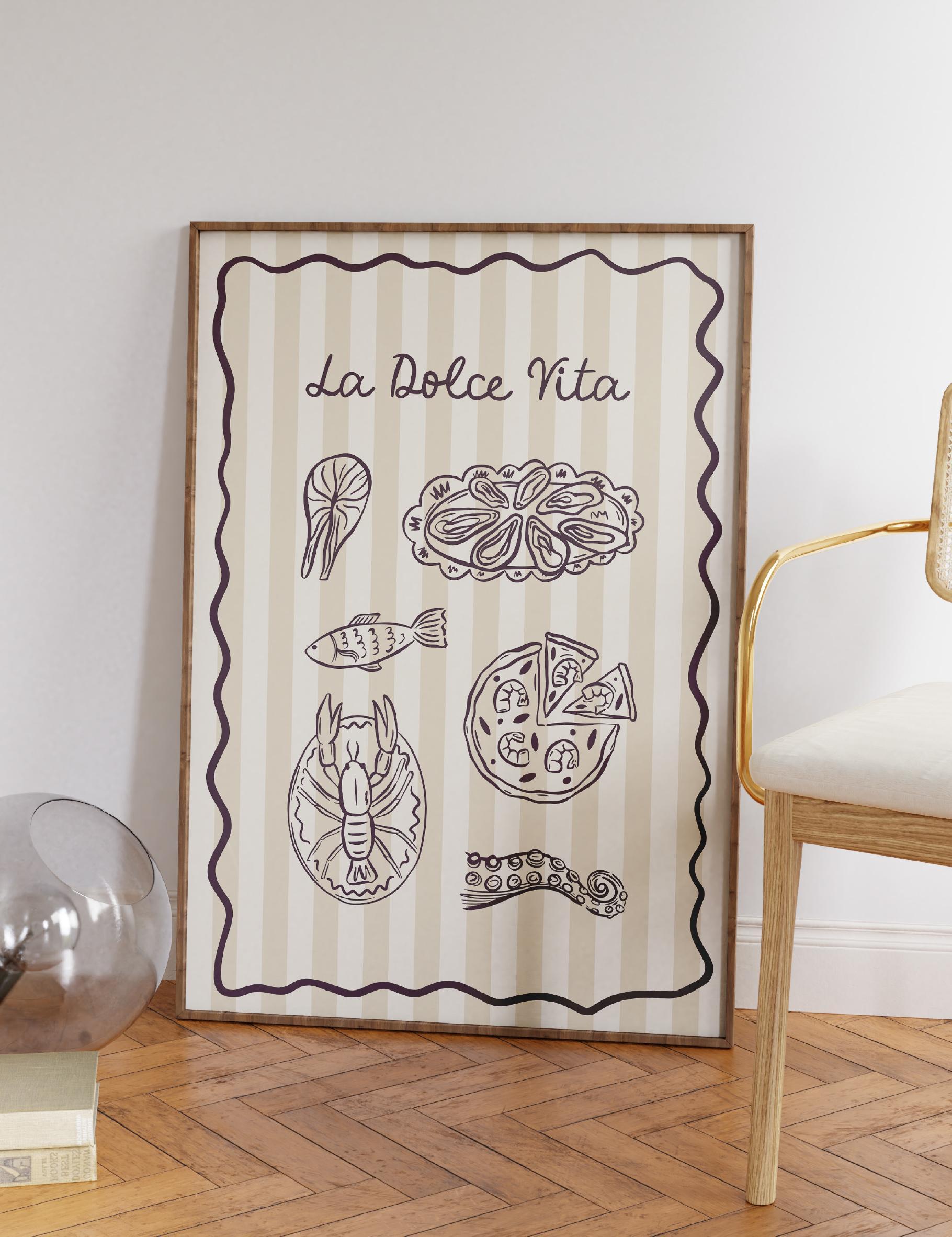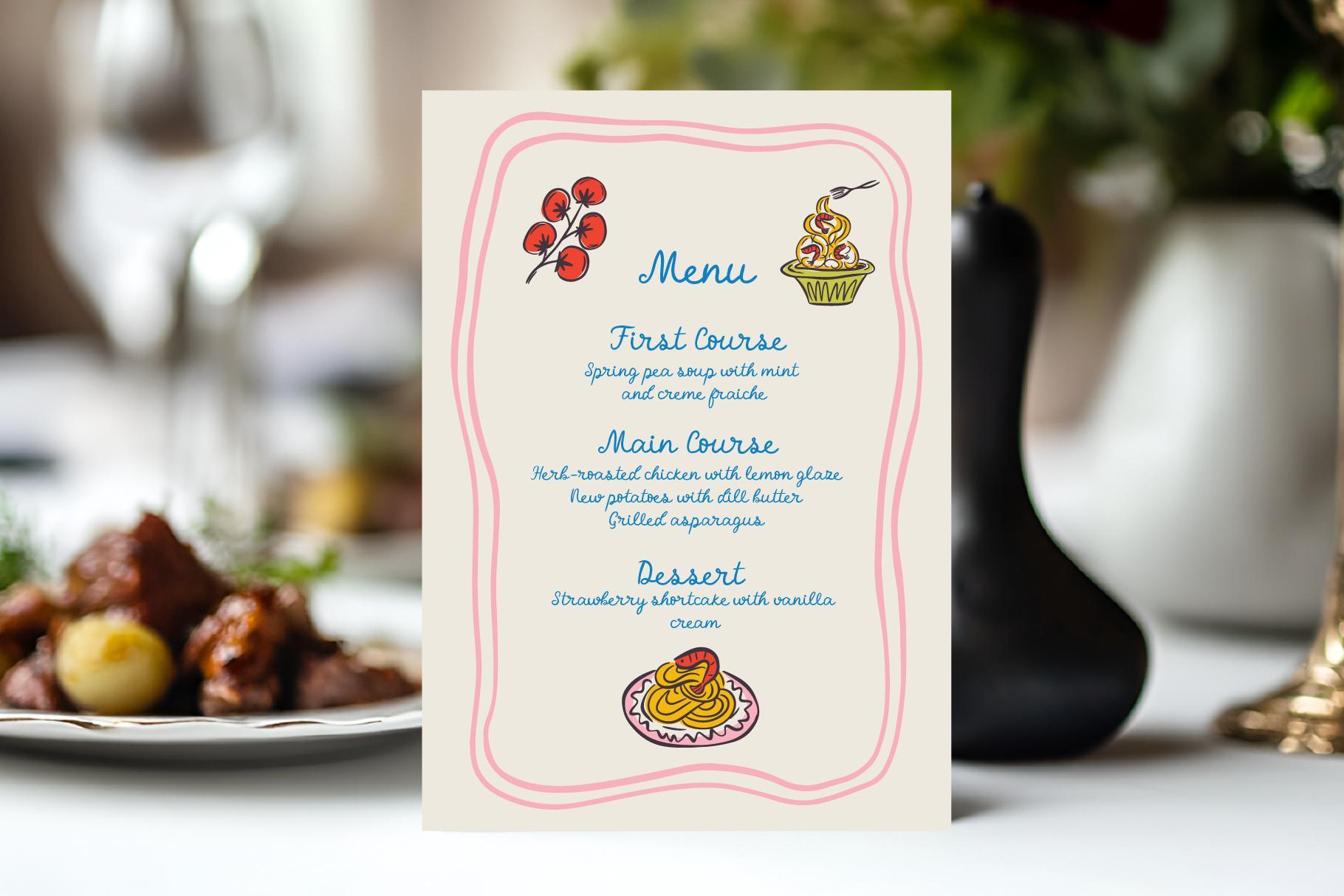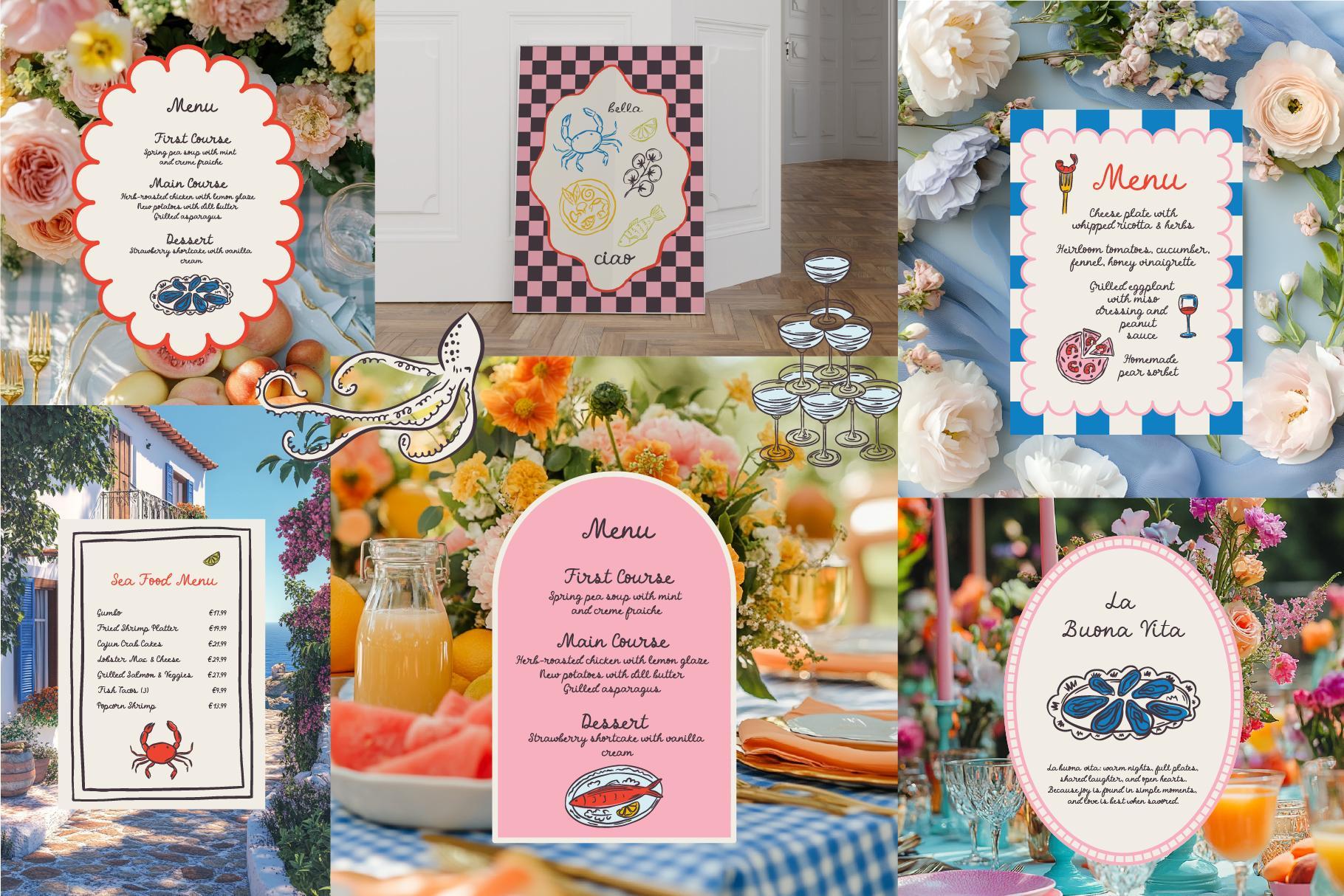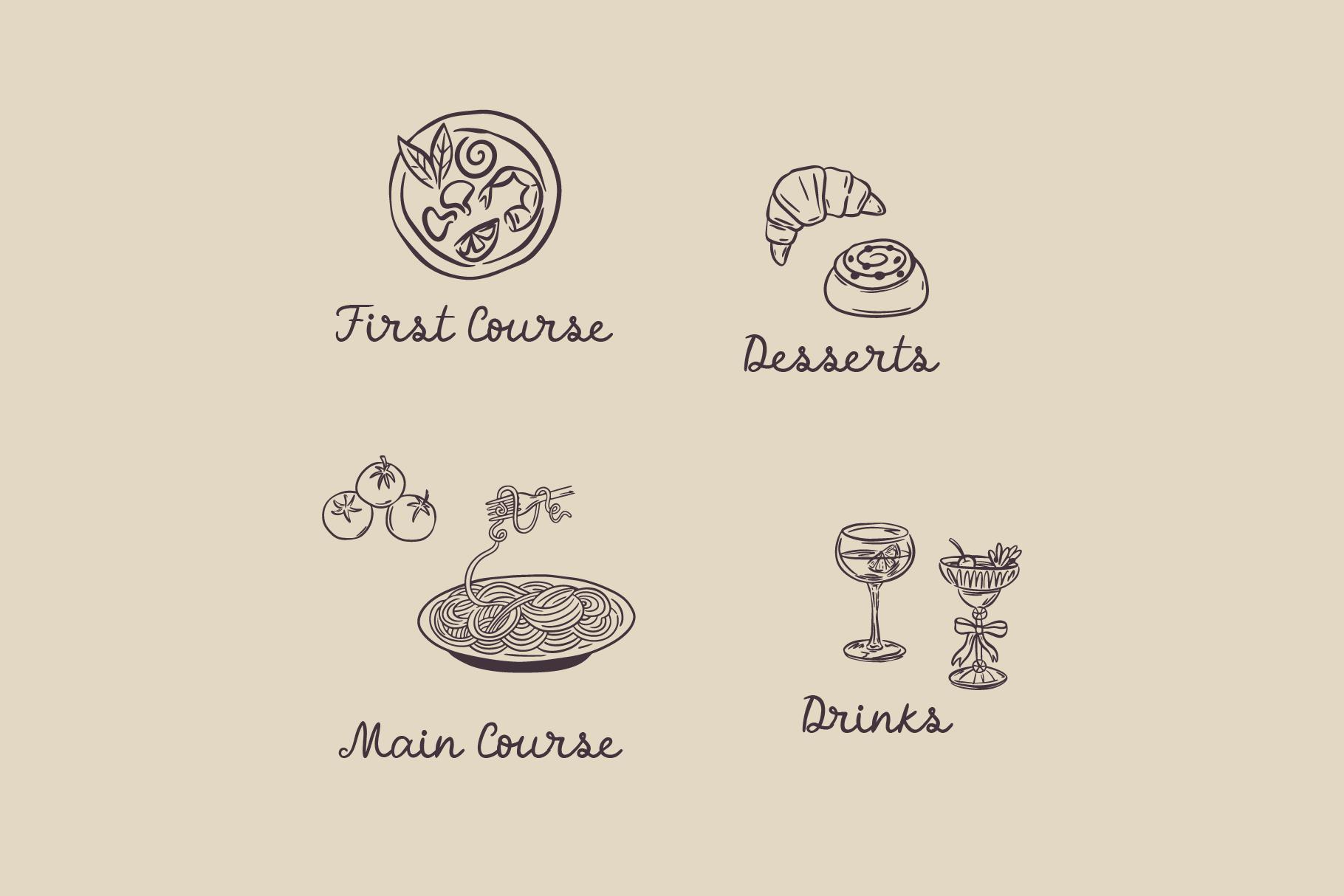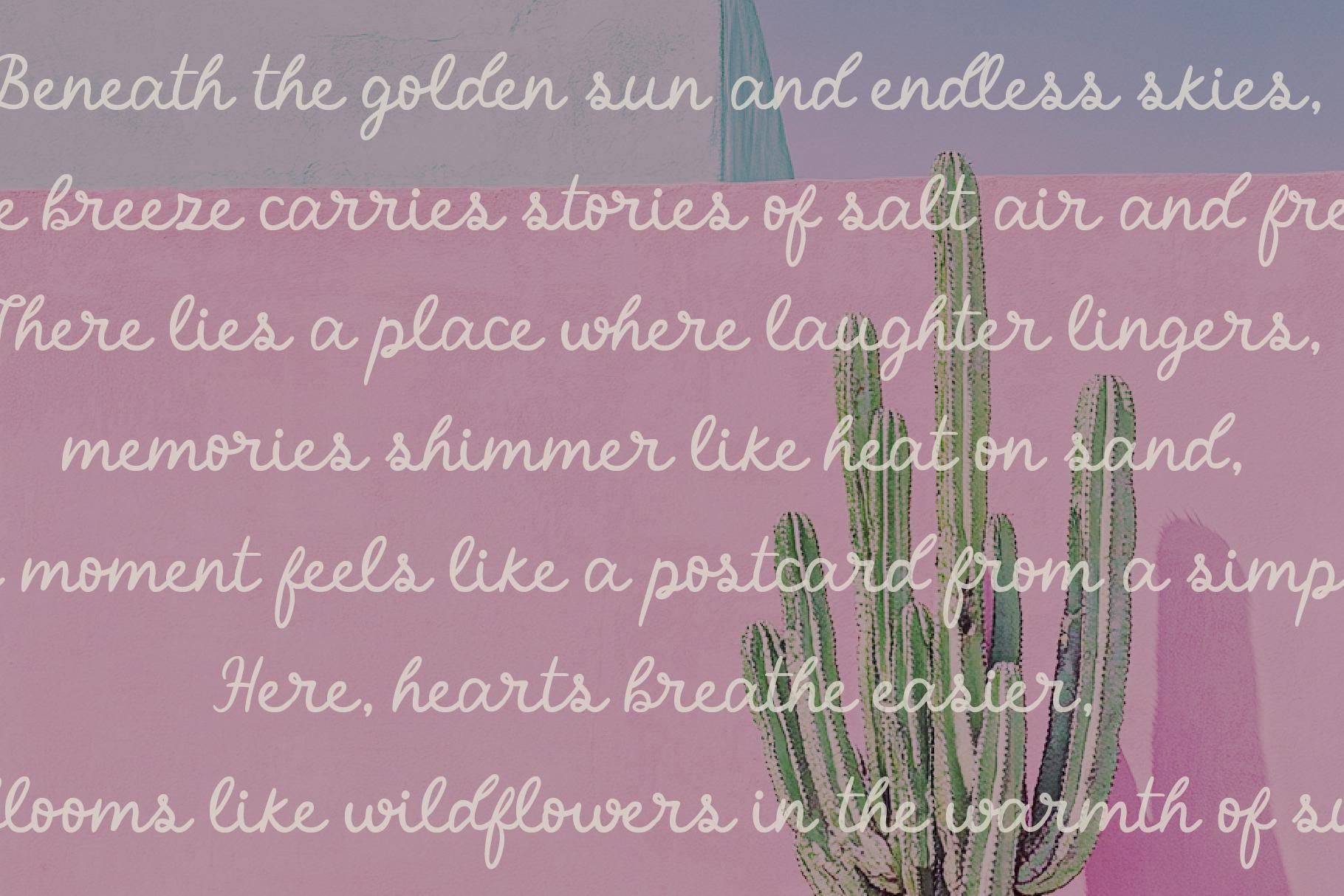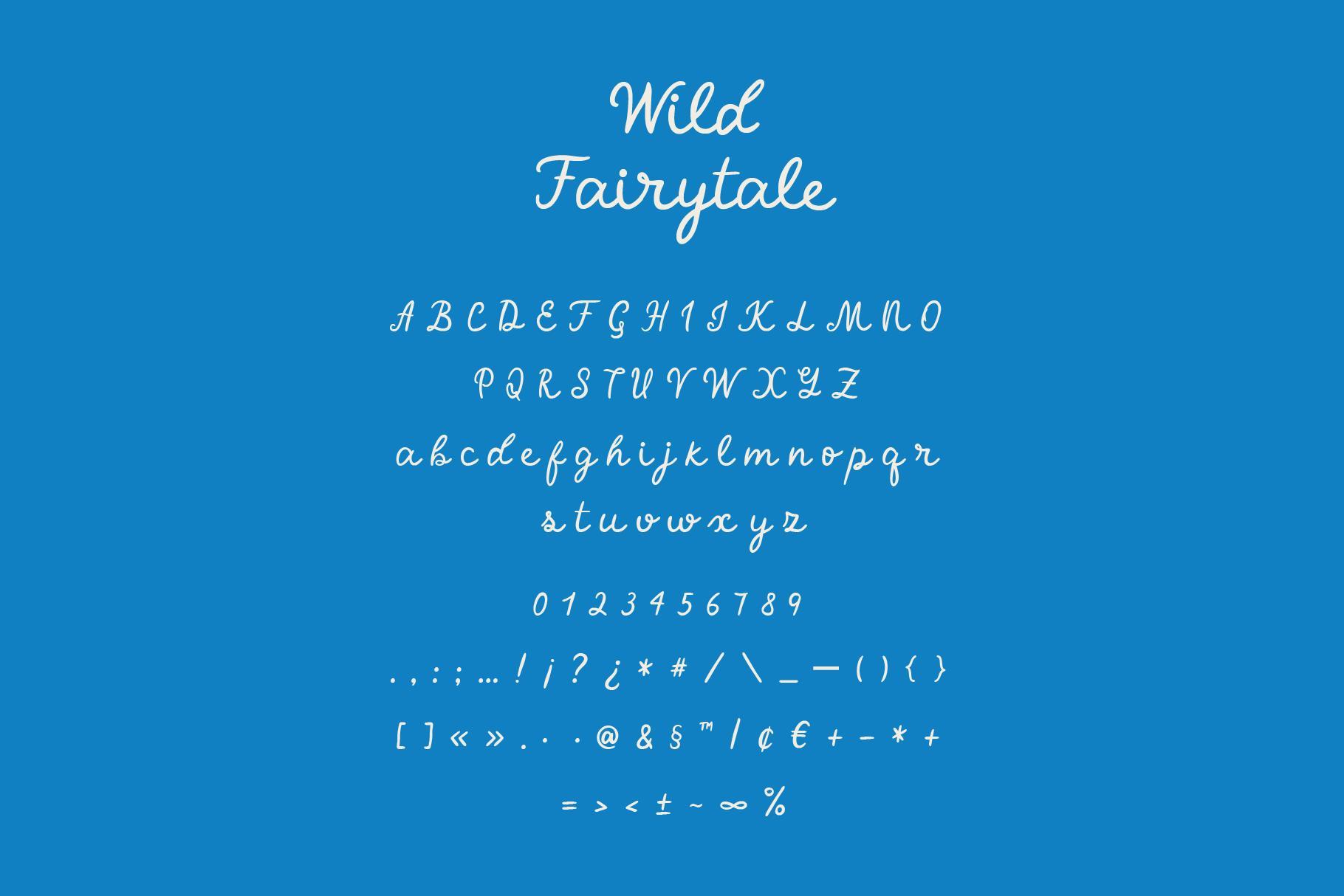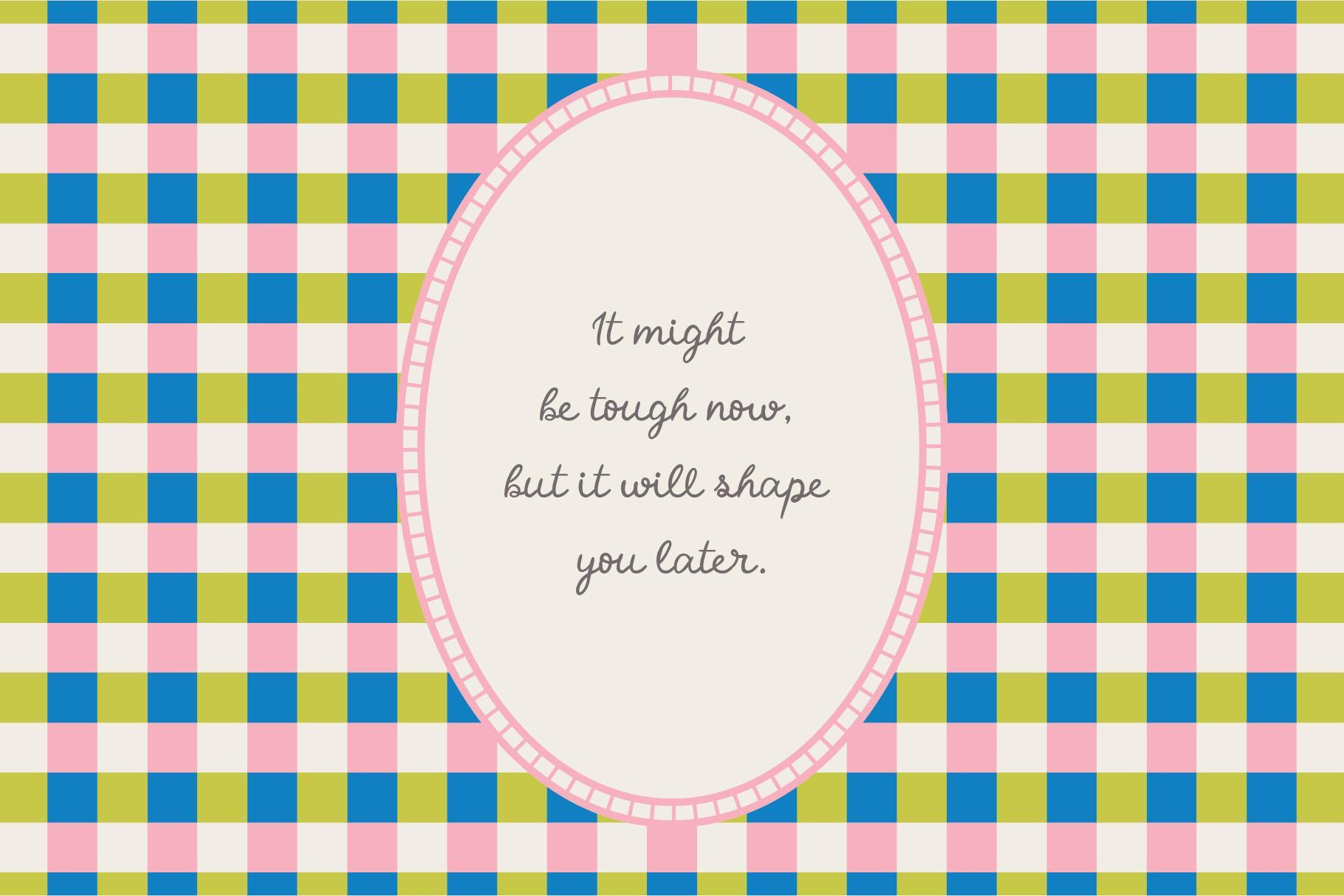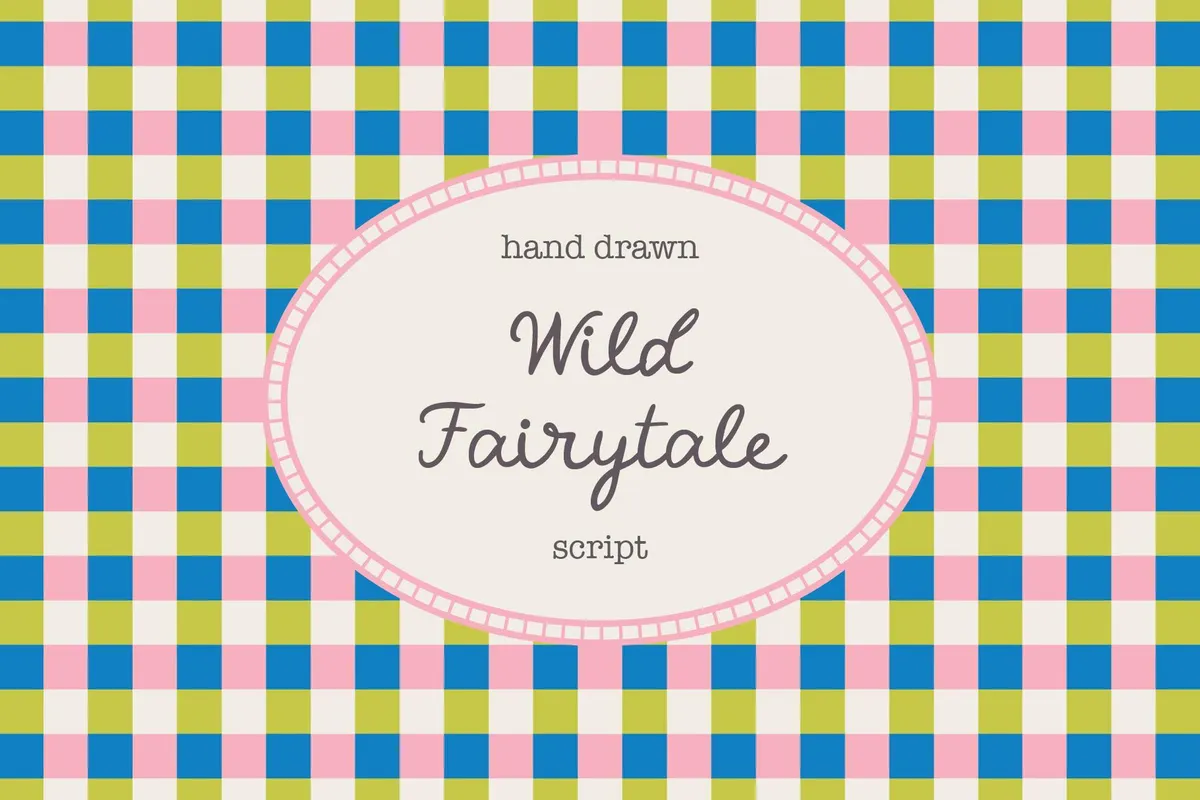
Wild Fairytale Font
Wild Fairytale Regular
The slightly irregular strokes of the Wild Fairytale give every word a natural flow, making it perfect for wedding stationery, love notes, event invitations, and romantic branding. Beyond paper goods, it works beautifully in Canva templates, Procreate lettering, social media graphics, and posters that call for a personal touch.
The font includes uppercase and lowercase letters, numerals, and punctuation.